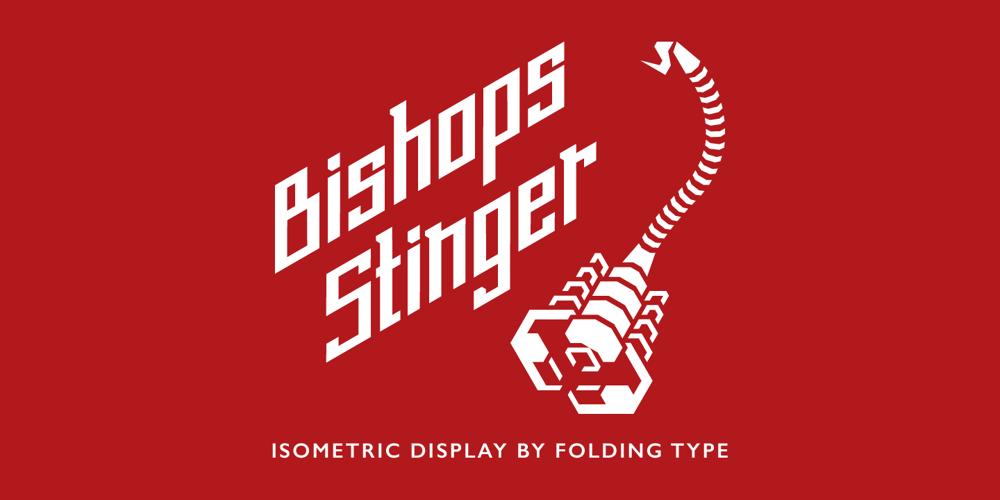
Bishops Stinger Font Family was designed by Phil Richardson and published by Folding Type. Bishops Stinger contains 1 styles and family package options. Ouch! Bishops Stinger is a unique isometric display typeface, perfect for bold headlines and logotypes. The blunt serifs and terminals that appear on select letters help ground the faced-paced look. When used for a block of text at smaller sizes the style resembles old script writing but with a retro futuristic twist.